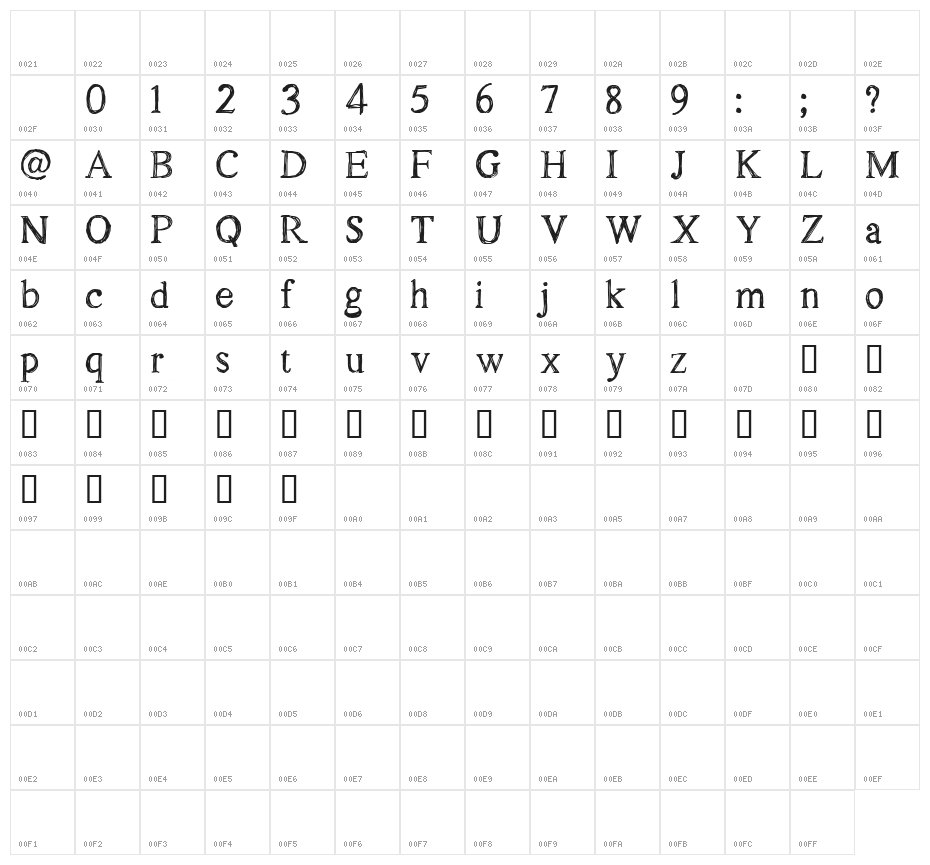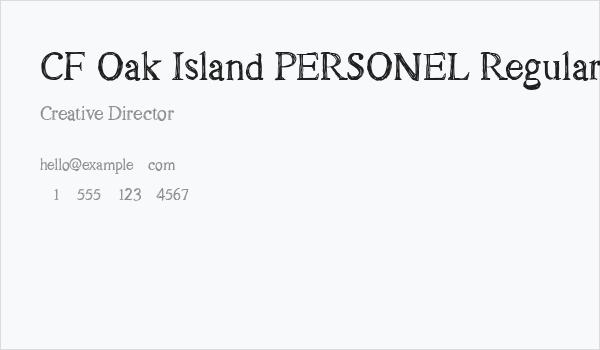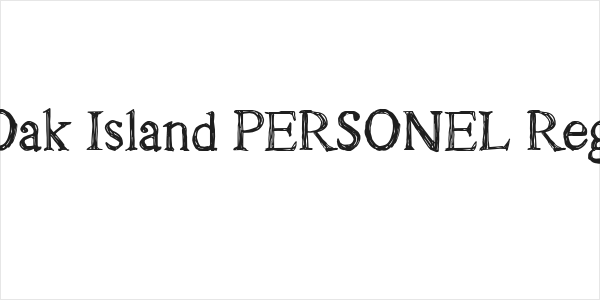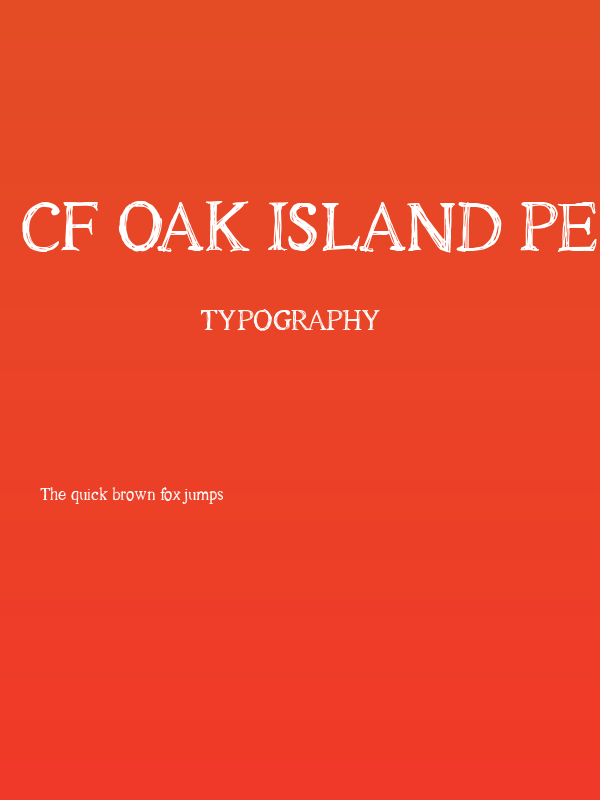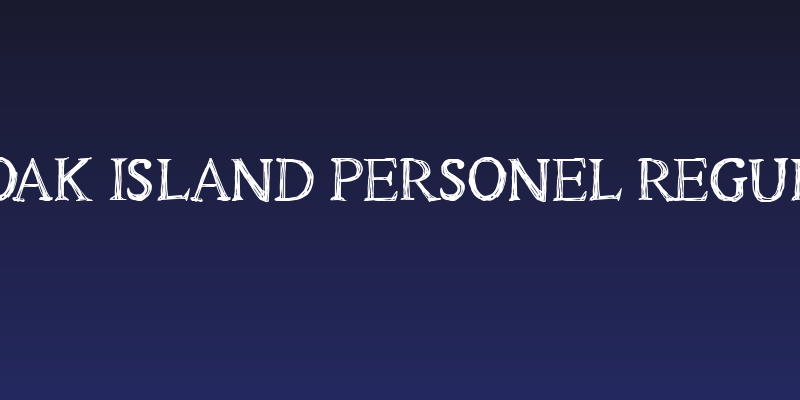
CF Oak Island PERSONEL Regular Font
CF Oak Island PERSONEL Regular Description
This font features a hand-drawn, rustic style with uneven strokes and a textured appearance, giving it a vintage and artisanal feel. The characters have a slightly rough edge, reminiscent of woodcut or hand-printed letters. The uppercase and lowercase letters maintain a consistent style, with a playful yet legible form. Numbers and special characters follow the same aesthetic, ensuring a cohesive look across all elements. The font's unique character is perfect for projects that require a touch of authenticity and charm.